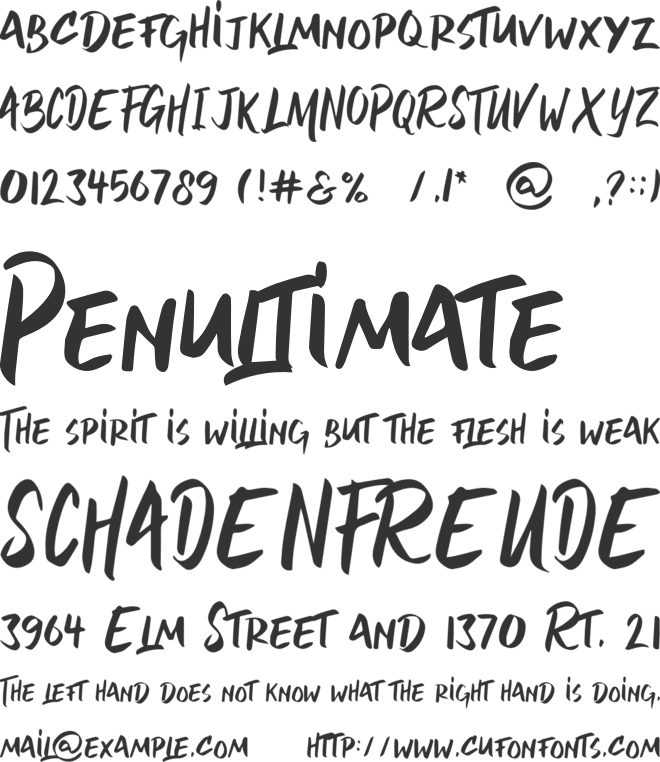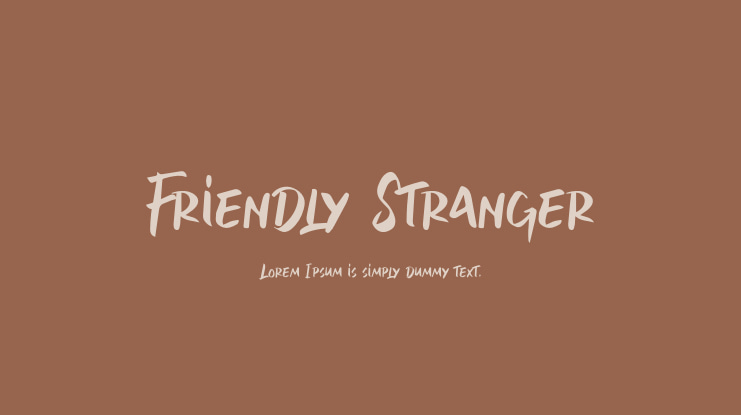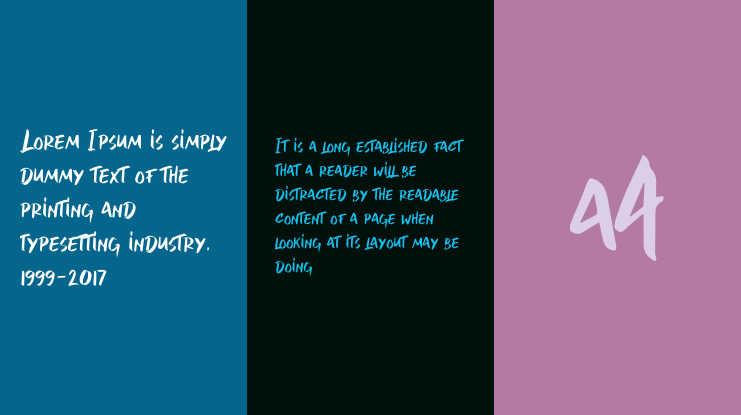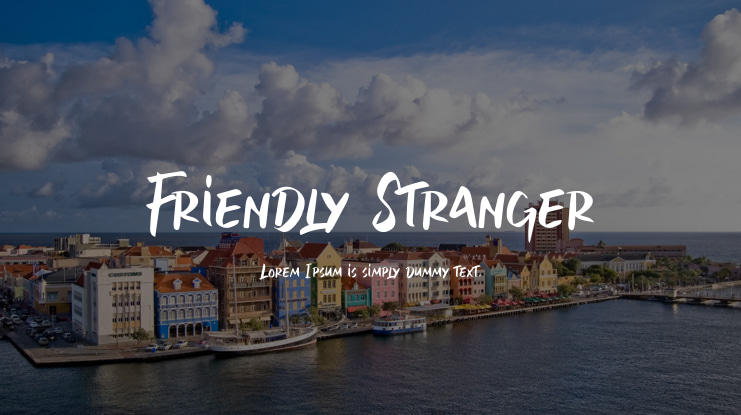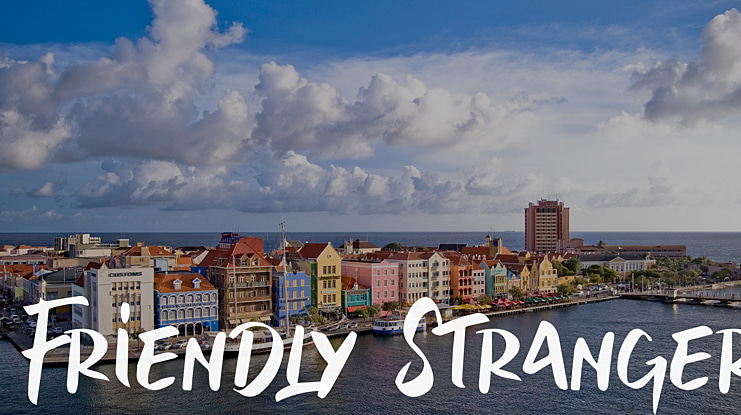
Friendly Stranger Font
Friendly Stranger is a casual font with natural brush stroke, comes with uppercase, lowercase, numerals, and punctuation. This font will be perfect pick for various designs & artworks like social media post, brand type, posters, merchandise, packaging, headlines, merchandises, t-shirt, and many more..
Features:
-Uppercase Letters
-Lowercase alternative Letters
-Numbers and Punctuation